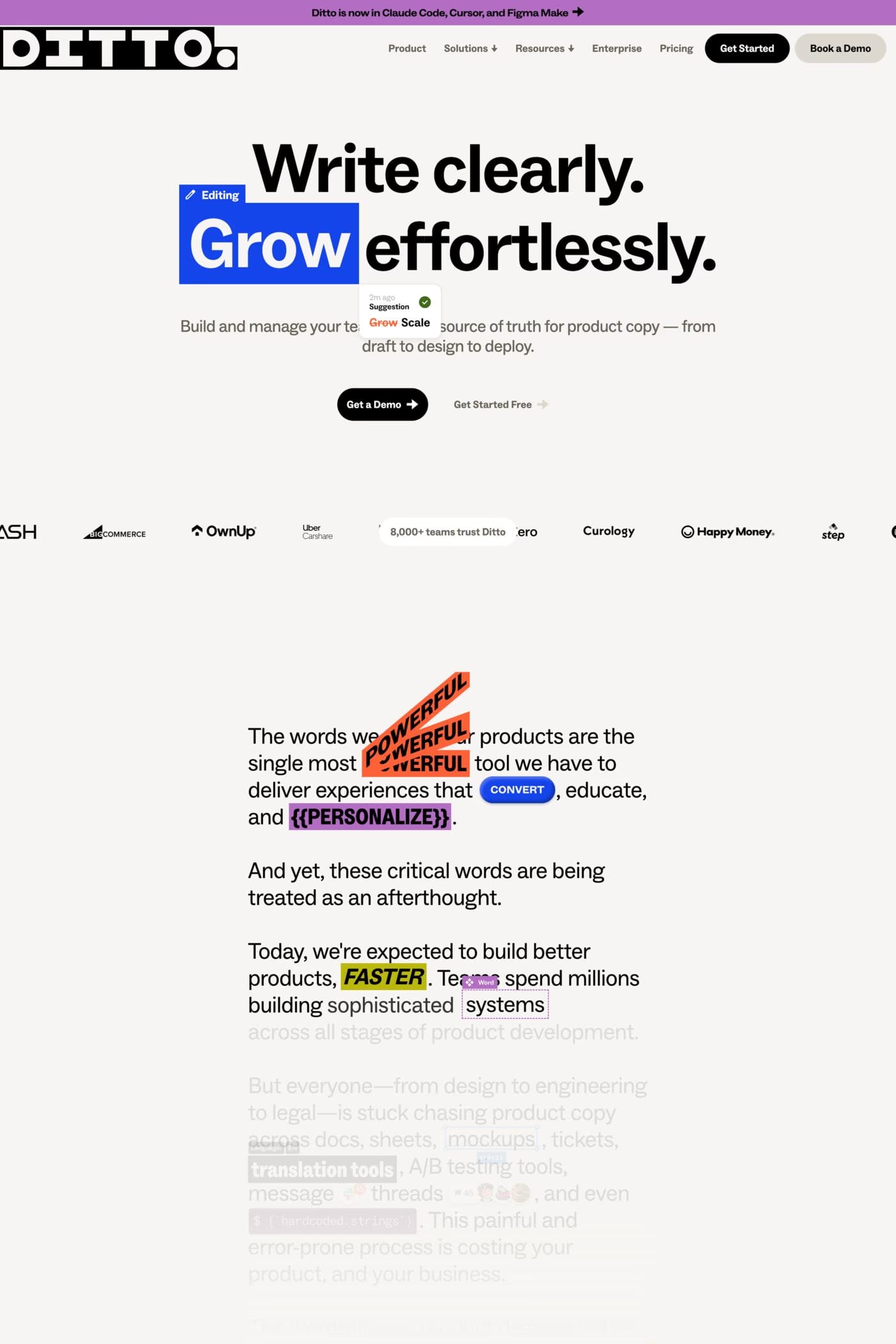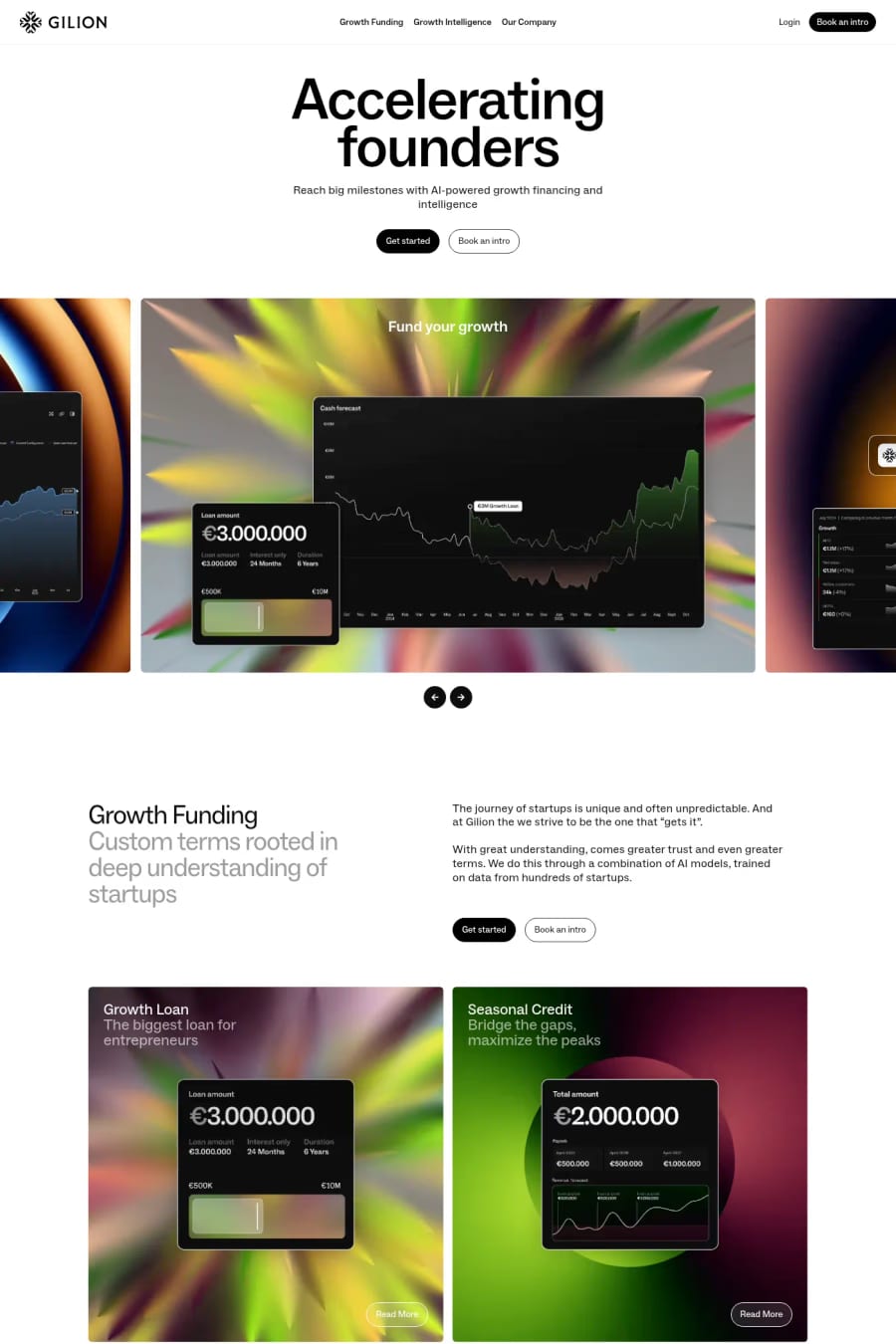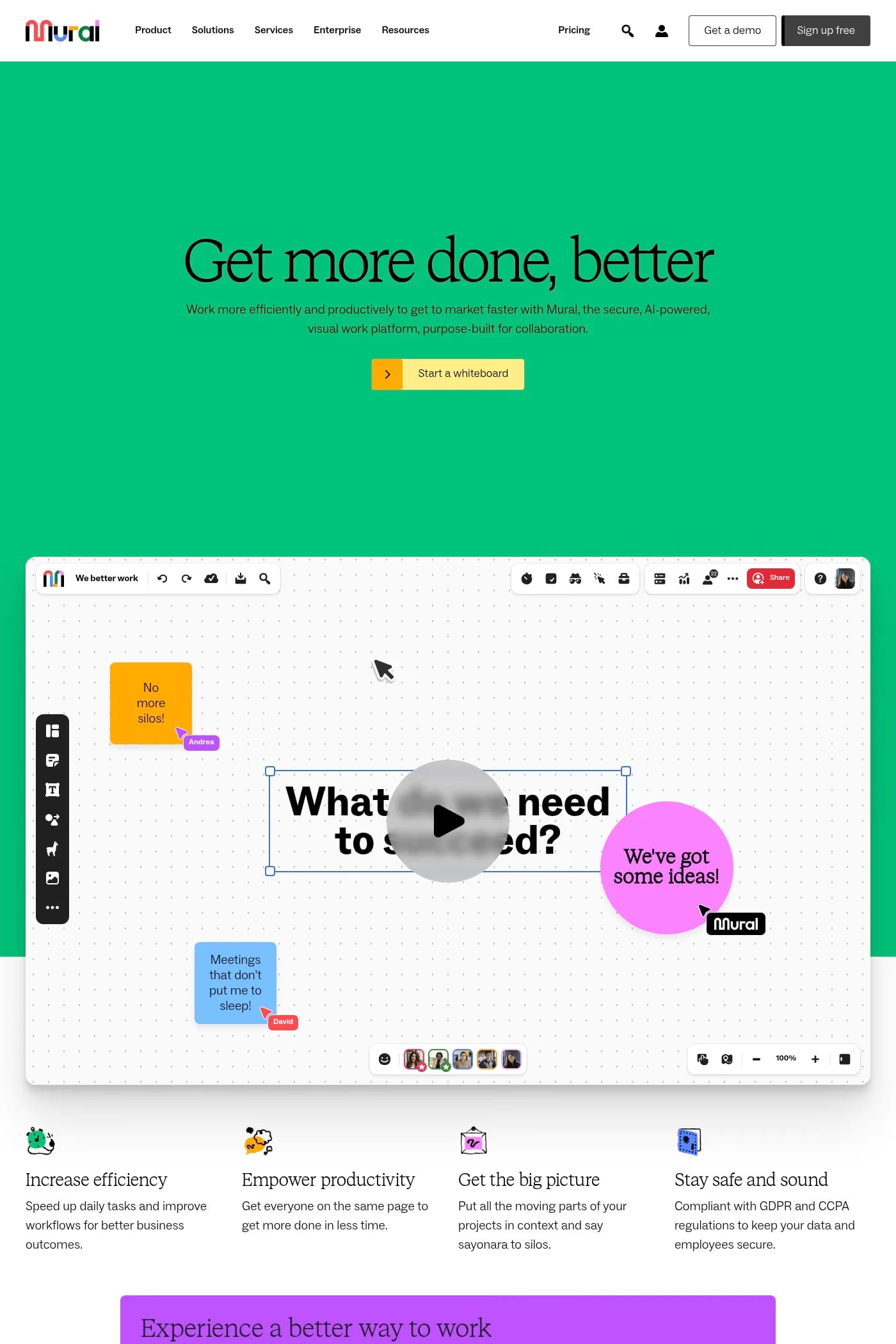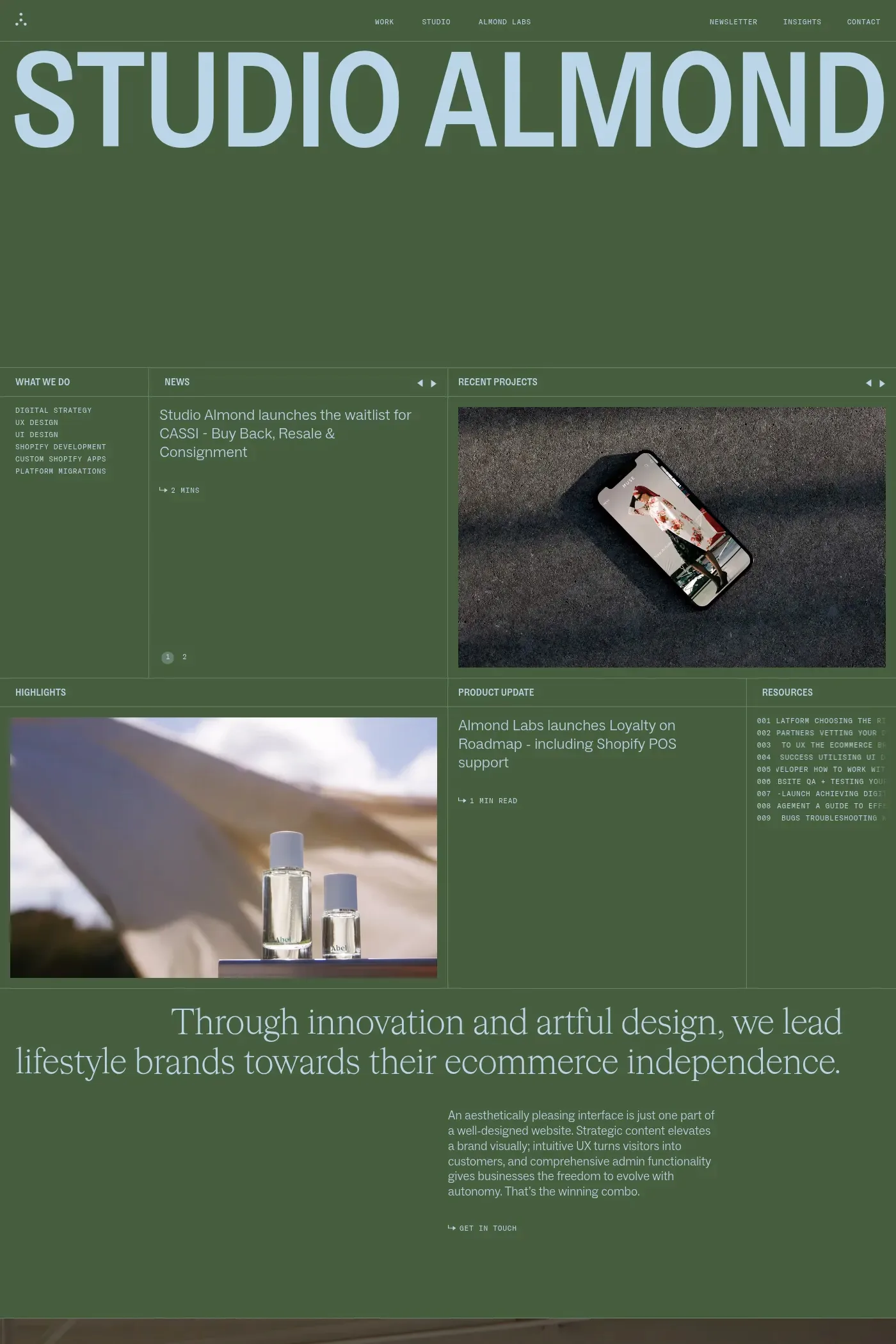
Social is a sans-serif typeface from Dinamo.
Social is a multi-people, multi-width mega collaboration made by many eyes and many players. As a friendly, smooth grotesque with Variable Font capabilities, it also fills a gap in our library, standing apart from our more constructed sans serifs both visually and technically.